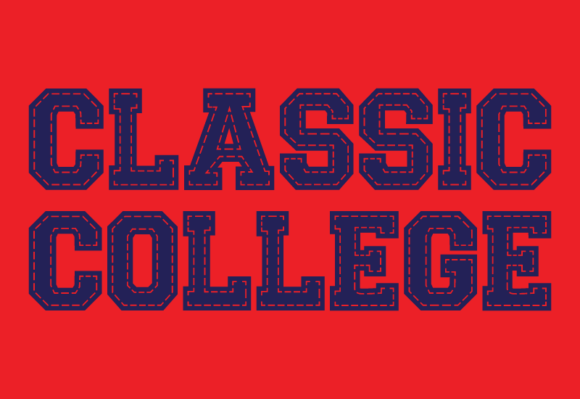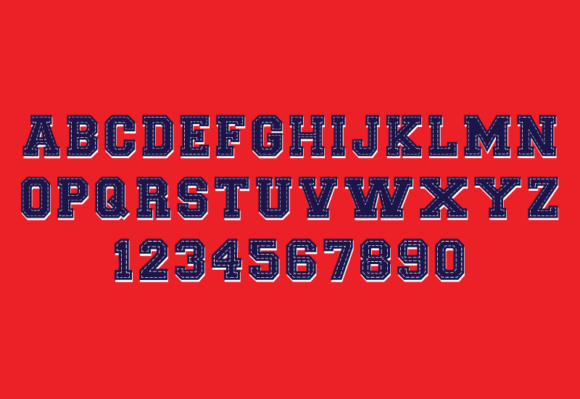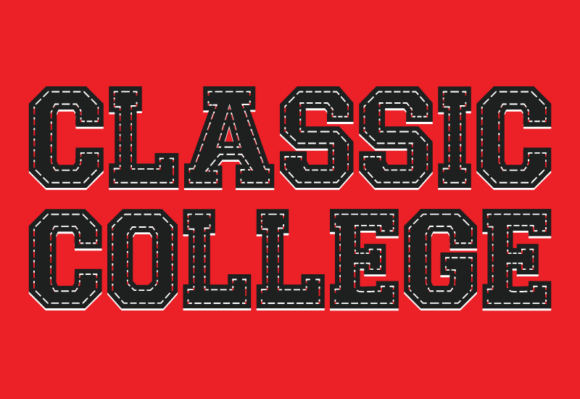
Unleash the Timeless Charm of Classic College Font: The Ultimate Emblem for American Sports
Immerse yourself in the nostalgic grace of the “Classic College” font, a timeless athletic typeface that latently resonates with the all-American sports tradition. This iconic font style has been a staple in the world of sports branding, evoking memories of sun-kissed campuses, spirited football games, and the quintessential American sportsmanship. In this article, we’ll explore the unique characteristics of the Classic College font, its design elements, and why it’s the perfect choice for designers and crafters looking to create authentic sports-related branding.
A Perfect Blend of Vintage Aesthetics and Sprightly Aura
The Classic College font is an idyllic blend of vintage aesthetics and a sprightly aura, making it an ideal emblem for football, baseball, or basketball logos and t-shirts. Its classic design elements, such as bold lines, symmetrical shapes, and a clear typographic structure, evoke a sense of nostalgia and tradition. At the same time, its modern twist and energetic feel make it perfect for capturing the attention of sports enthusiasts and fans.
Design Elements that Make Classic College Font Stand Out
The Classic College font boasts several design elements that make it stand out from other athletic typefaces. Some of its notable features include:
- Bold and Condensed Letterforms: The font’s bold and condensed letterforms make it perfect for headlines, titles, and logos, where impact and legibility are crucial.
- Symmetrical Shapes: The font’s symmetrical shapes and balanced design create a sense of harmony and stability, reflecting the values of teamwork and sportsmanship.
- Vintage Flair: The font’s vintage flair, with subtle imperfections and classic lines, adds a touch of nostalgia and authenticity to any design.
Capturing the True Essence of an American Campus
The Classic College font captures the true essence of an American campus, harking back to the varsity style synonymous with collegiate sports. Its design elements and typographic structure evoke memories of campus life, sports rivalries, and the excitement of competition. Whether you’re designing a logo for a sports team, a t-shirt for a college event, or a branding campaign for a sports-related business, this font is sure to resonate with your audience.
Why Classic College Font is Perfect for Sports-Related Branding
The Classic College font is more than just a typeface – it’s the winning spirit and enduring charm of collegiate sports encapsulated. Here are some reasons why it’s perfect for sports-related branding:
- Authenticity: The font’s classic design and vintage flair make it an authentic representation of American sports tradition.
- Legibility: The font’s bold and clear typographic structure ensures that your message is conveyed clearly and legibly, even at a distance.
- Versatility: The font’s versatility makes it suitable for a wide range of applications, from logos and t-shirts to billboards and digital media.
- Emotional Connection: The font’s nostalgic appeal and energetic feel create an emotional connection with sports enthusiasts and fans, making it perfect for building brand loyalty.
In conclusion, the Classic College font is a timeless athletic typeface that embodies the spirit of American sports tradition. Its unique blend of vintage aesthetics and sprightly aura makes it perfect for designers and crafters looking to create authentic sports-related branding. Whether you’re designing a logo, t-shirt, or branding campaign, this font is sure to capture the attention of sports enthusiasts and fans. So why settle for a generic font when you can unleash the timeless charm of Classic College font in your designs?
With its bold lines, symmetrical shapes, and classic typographic structure, the Classic College font is the ultimate emblem for American sports. So go ahead, immerse yourself in the nostalgic grace of this iconic font, and create designs that resonate with the winning spirit and enduring charm of collegiate sports.